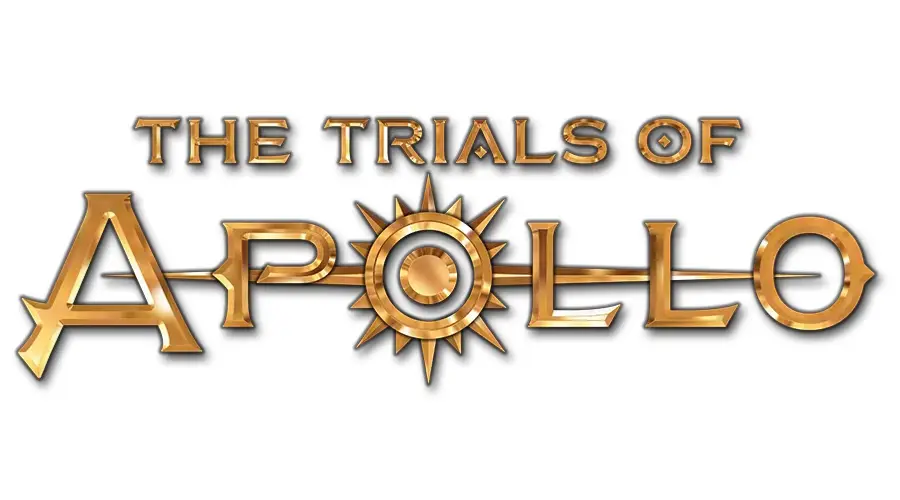
The Trials of Apollo Font is the elegant, ornate typeface featured on Rick Riordan’s mythological book series. This distinctive font captures the ancient Greek aesthetic while maintaining modern readability, perfectly complementing the story of the god Apollo’s mortal journey. The closest identified match is FM Bolyar Ornate by The Fontmaker, which shares the same classical yet contemporary styling.
FM Bolyar Ornate by The Fontmaker The most similar font to the book series’ typography.